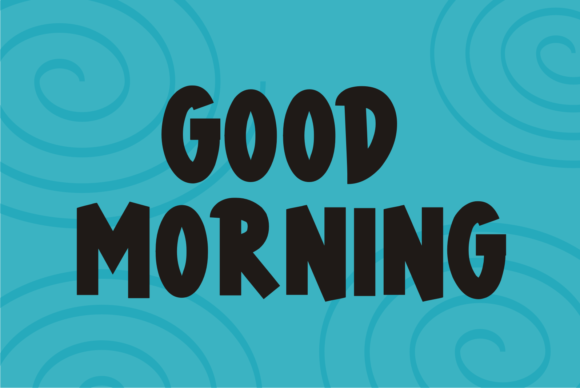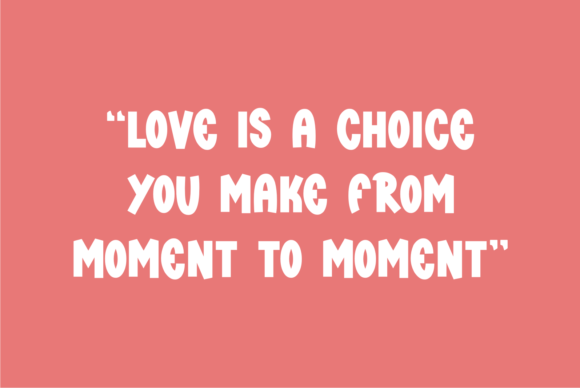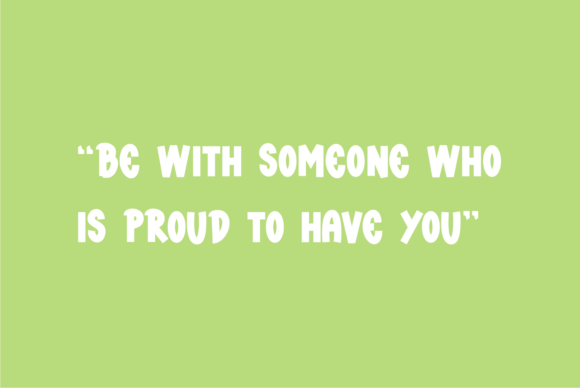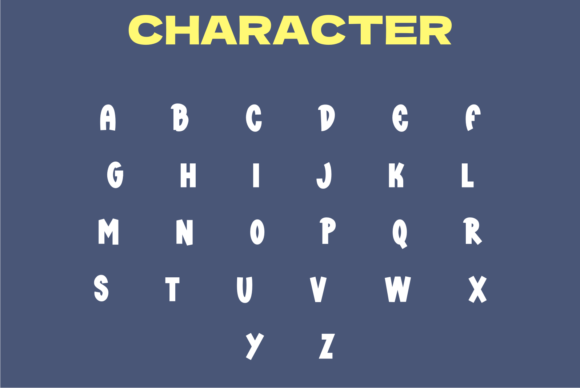
Discover the Power of Anwerta Right Font: Elevate Your Designs with a Thick-Lettered and Cool Display Font
Are you tired of using the same old fonts in your designs? Do you want to add a touch of uniqueness and style to your creations? Look no further than Anwerta Right Font! This thick-lettered and cool display font is simple yet packs a strong visual effect that will instantly make your designs more appealing than any others.
What is Anwerta Right Font?
Anwerta Right Font is a display font designed to make a statement. Its thick letters and bold design make it perfect for headlines, titles, and any other text that needs to stand out. The font’s simplicity is part of its charm, making it easy to read and understand while still being visually striking.
Key Features of Anwerta Right Font
- Thick-Lettered Design: The font’s thick letters make it perfect for creating bold and eye-catching text.
- Cool and Modern Aesthetic: Anwerta Right Font has a modern and cool aesthetic that will add a touch of style to your designs.
- Simple yet Effective: The font’s simplicity makes it easy to read and understand, while its bold design ensures it grabs attention.
- Versatile: Anwerta Right Font can be used in a variety of designs, from posters and flyers to digital graphics and more.
Why Choose Anwerta Right Font?
There are many fonts available for designers and crafters, but Anwerta Right Font stands out from the rest. Here are just a few reasons why:
- Instant Visual Impact: Anwerta Right Font’s bold design ensures that your text will grab attention and make a lasting impression.
- Easy to Read: Despite its bold design, Anwerta Right Font is easy to read and understand, making it perfect for use in a variety of designs.
- Unique and Stylish: Anwerta Right Font’s modern and cool aesthetic ensures that your designs will stand out from the crowd.
How to Use Anwerta Right Font in Your Designs
Anwerta Right Font is versatile and can be used in a variety of designs. Here are just a few ideas to get you started:
- Posters and Flyers: Use Anwerta Right Font to create bold and eye-catching headlines and titles.
- Digital Graphics: Anwerta Right Font is perfect for use in digital graphics, such as social media posts and blog headers.
- Logos and Branding: Anwerta Right Font’s bold design makes it perfect for use in logos and branding materials.
Tips for Getting the Most Out of Anwerta Right Font
Here are just a few tips for getting the most out of Anwerta Right Font:
- Use it Sparingly: Anwerta Right Font’s bold design makes it perfect for use in headlines and titles, but use it sparingly to avoid overwhelming your design.
- Experiment with Colors: Anwerta Right Font looks great in a variety of colors, so experiment to find the perfect color for your design.
- Pair it with Other Fonts: Anwerta Right Font pairs well with other fonts, so don’t be afraid to experiment with different font combinations.
Anwerta Right Font is a powerful tool for designers and crafters looking to add a touch of style and uniqueness to their creations. Its thick-lettered and cool display font design makes it perfect for use in a variety of designs, from posters and flyers to digital graphics and more. With its instant visual impact, ease of use, and versatility, Anwerta Right Font is sure to become a favorite in your design arsenal.